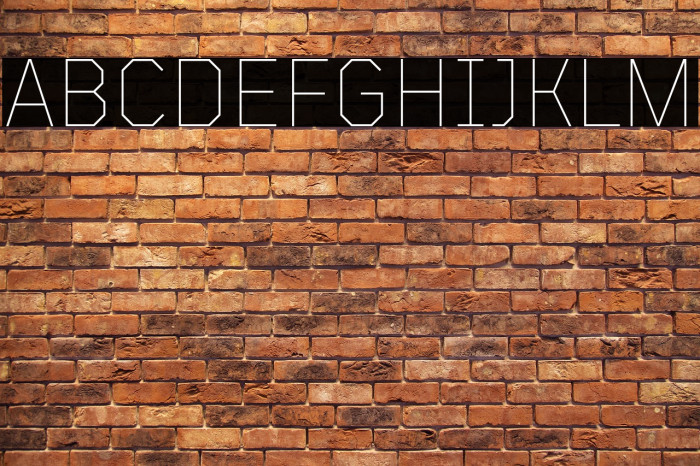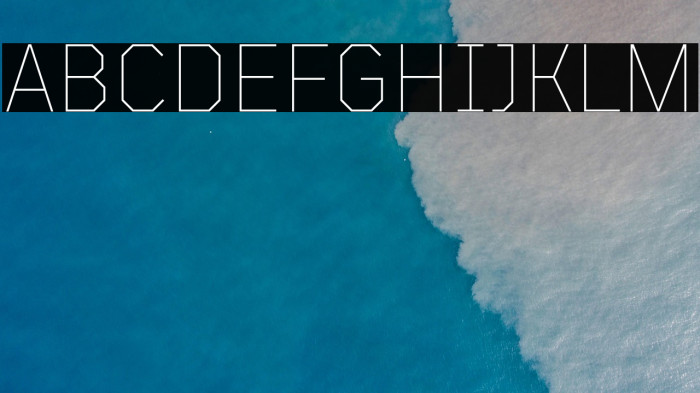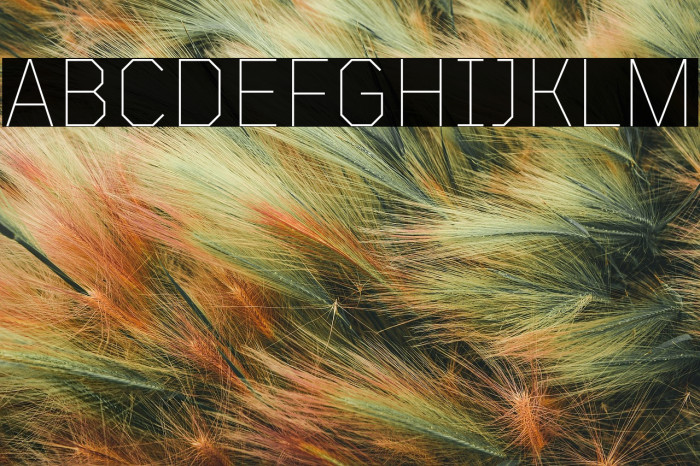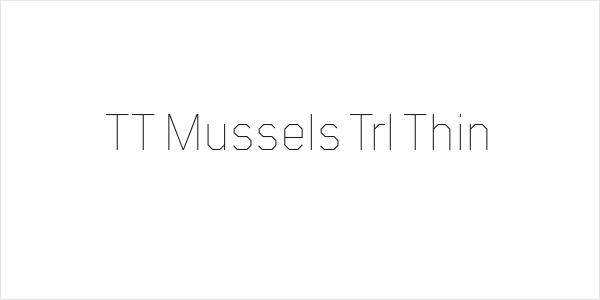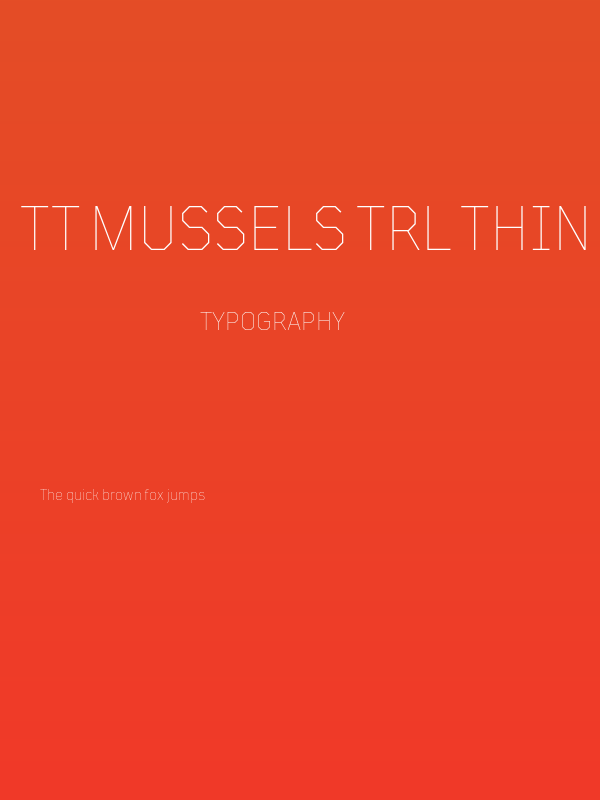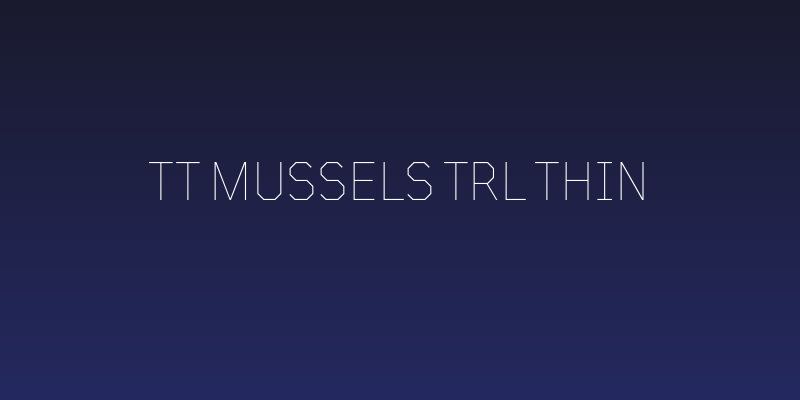
TT Mussels Trl Thin Font
TT Mussels Trl Thin Description
This font features a geometric and angular design, characterized by its thin, linear strokes and sharp corners. The letters are constructed with a consistent line weight, giving it a modern and minimalist appearance. The uppercase and lowercase letters maintain a uniform height, while the numerals and special characters follow the same angular style, ensuring a cohesive look across all characters. The font's structure is clean and uncluttered, making it suitable for contemporary design projects that require a sleek and futuristic aesthetic.
| Use Case | Logos, Headlines, Digital Interfaces |
| Proposed Projects | Ideal for tech branding, modern posters, digital interfaces, and minimalist graphic design projects. |